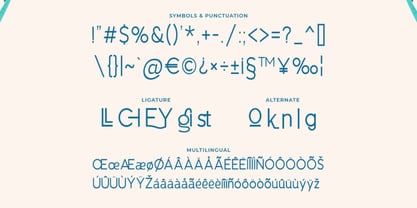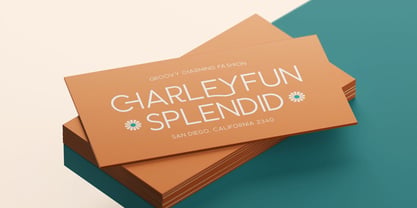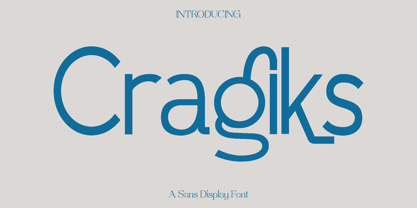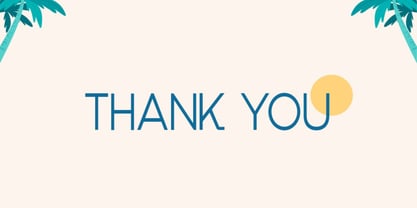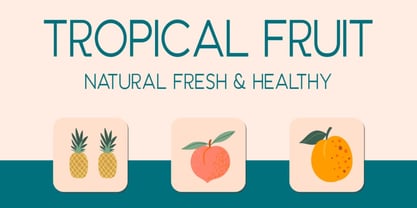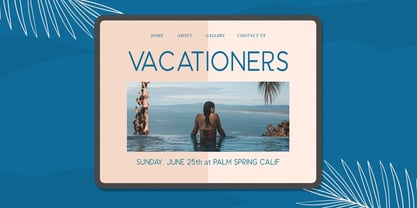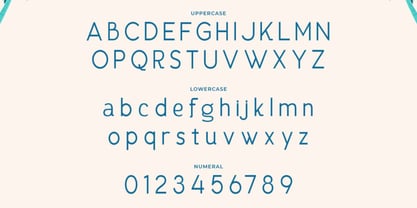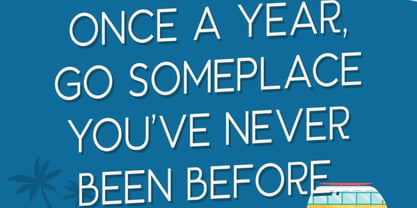
Cragiks
by Only Fonts
The Cragiks Font Family was designed by Olivia Love and published by Only Fonts. Cragiks contains 1 styles. More about this family
Cragiks – Modern Sans Display Font Cragiks is a modern sans display font crafted to infuse clarity, confidence, and contemporary style into your typography. With a focus on clean geometry and balanced proportions, Cragiks offers a bold visual presence while maintaining a refined and approachable aesthetic. Its design draws inspiration from modern branding trends and minimalistic styles, making it an ideal choice for creatives seeking a fresh and impactful look. This font excels across a variety of applications, including branding, logo design, posters, social media graphics, packaging, and editorial layouts. Cragiks is particularly effective in headlines and display settings, where strong typography is essential for visual storytelling. Its modern personality conveys professionalism and creativity, making it suitable for both commercial and artistic projects. Cragiks embodies sleekness, confidence, and adaptability. Whether you are developing a brand identity, designing promotional materials, or crafting digital content, this font enhances readability while adding a stylish edge. The combination of clean letterforms and expressive alternates empowers designers to create unique and visually engaging compositions. Cragiks Modern Sans Display Font Features: • Uppercase and lowercase characters • Ligatures and alternate characters • Numbers, symbols, and punctuation • Multilingual support Incorporate Cragiks into your type collection to elevate your creative projects with a modern, polished look. Its versatility and strong visual character make it a dependable choice for designers who prioritize both functionality and style.
Designers: Olivia Love
Foundry: Only Fonts
Cragiks